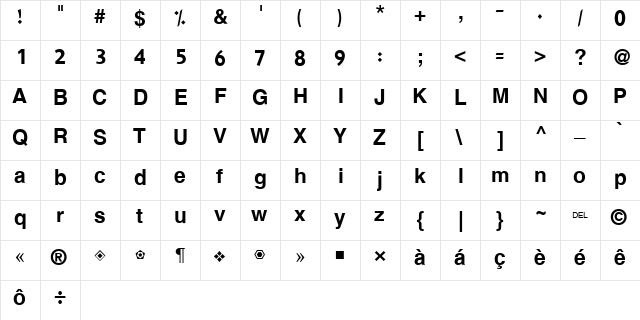
Hacen Sudan Bd Regular
| Foundry | Muhammad Hacen |
| Designer | Muhammad Hacen |
Design Context for Hacen Sudan Bd Typeface
Hacen Sudan Bd is a composed and adaptable typeface that performs quietly and consistently across a wide range of design contexts. Its bold stroke weight gives it real presence on the page.